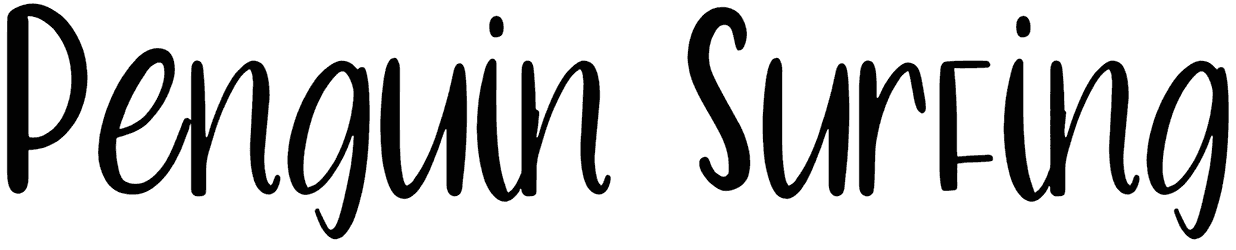
Penguin Surfing Font
If you are looking for a cute, playful handwritten font to represent your design with a sense of happiness and fun, you’d better pick out Penguin Surfing. It will help you to bring a stunning touch to your work and make…
If you are looking for a cute, playful handwritten font to represent your design with a sense of happiness and fun, you’d better pick out Penguin Surfing. It will help you to bring a stunning touch to your work and make it stand out. You can use this surf font for creating book covers, cartoon titles, party invitations, product packaging, and stickers.
Penguin Surfing is handdrawn and double preasure. Look unic dan funny. This font will easily add a fun touch to any craft that you wish to develop!